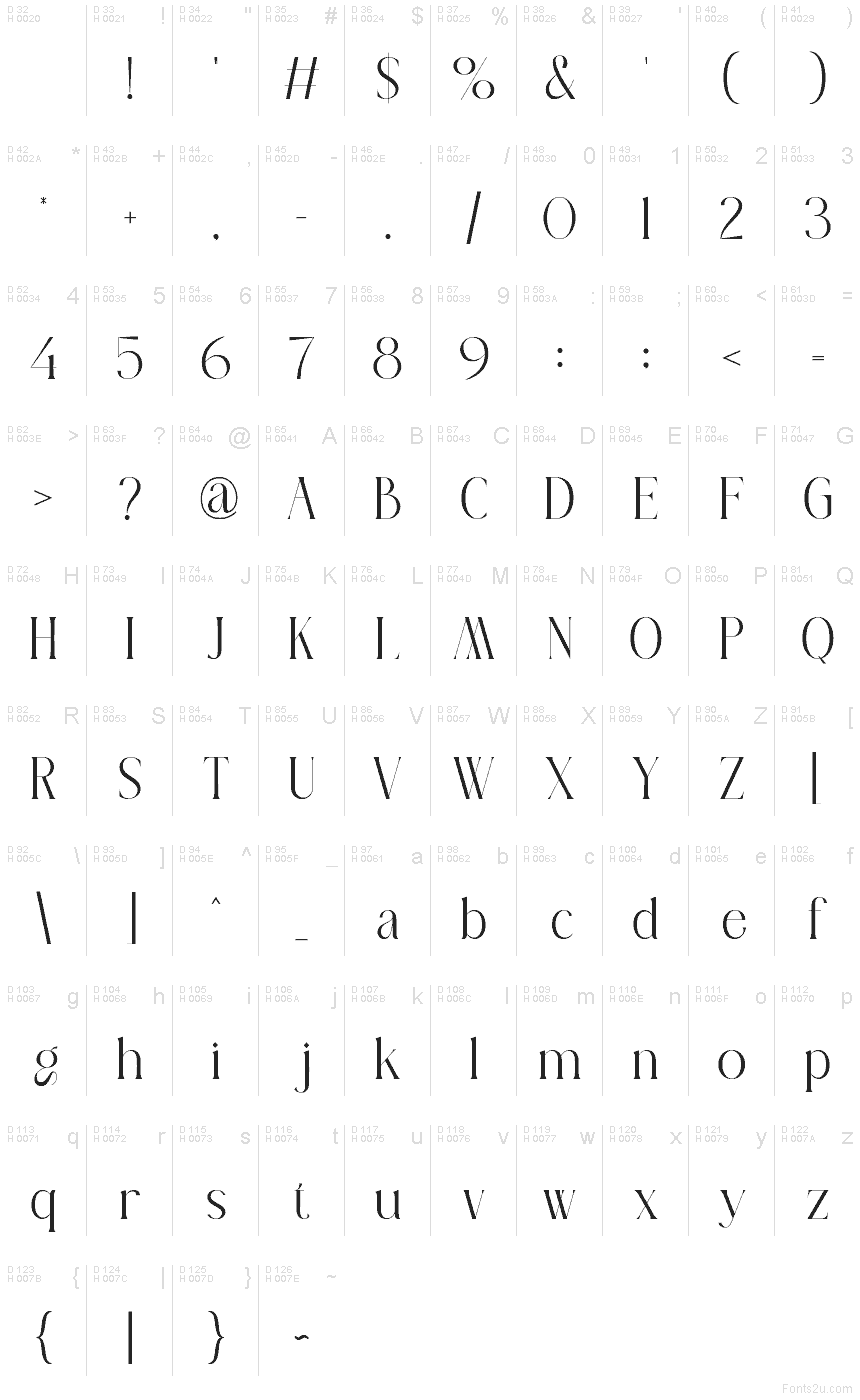
Bigora
Bigora font by Ermedia Studio is a free serif display typeface. Built around a striking interplay of razor-thin hairlines and inky, sculpted curves, it delivers drama without noise. Angular wedges meet soft flourishes, creating a luxurious cadence that reads crisp at large sizes and opulent up close. It’s the rare serif that feels both editorial and boutique.
Using Bigora, headlines and logos gain instant presence—think beauty branding, perfume packaging, magazine covers, wedding invitations, boutique logos, and fashion lookbooks. This free font shines on minimal layouts where white space lets its shapes breathe. Pair it with a clean geometric sans for body copy, and keep Bigora a size or two larger to preserve its elegant contrast.